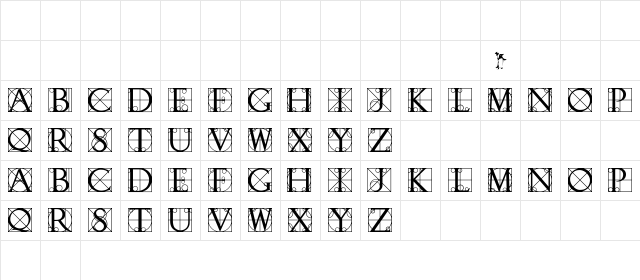
Walrod Regular
Design Context for Walrod Typeface
Walrod takes a measured approach to typography — its balanced proportions and neutral character make it a reliable workhorse for both digital and print work.